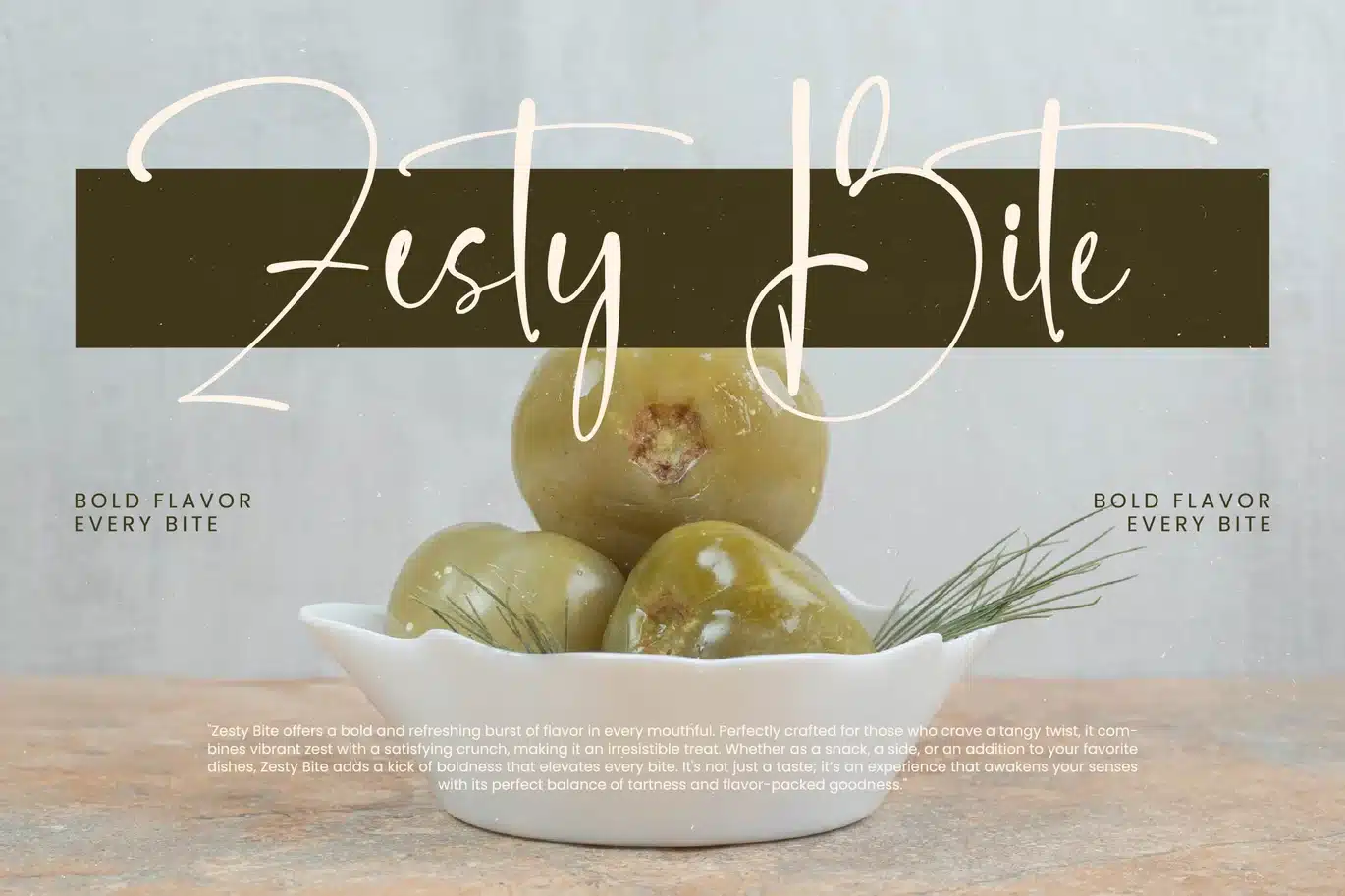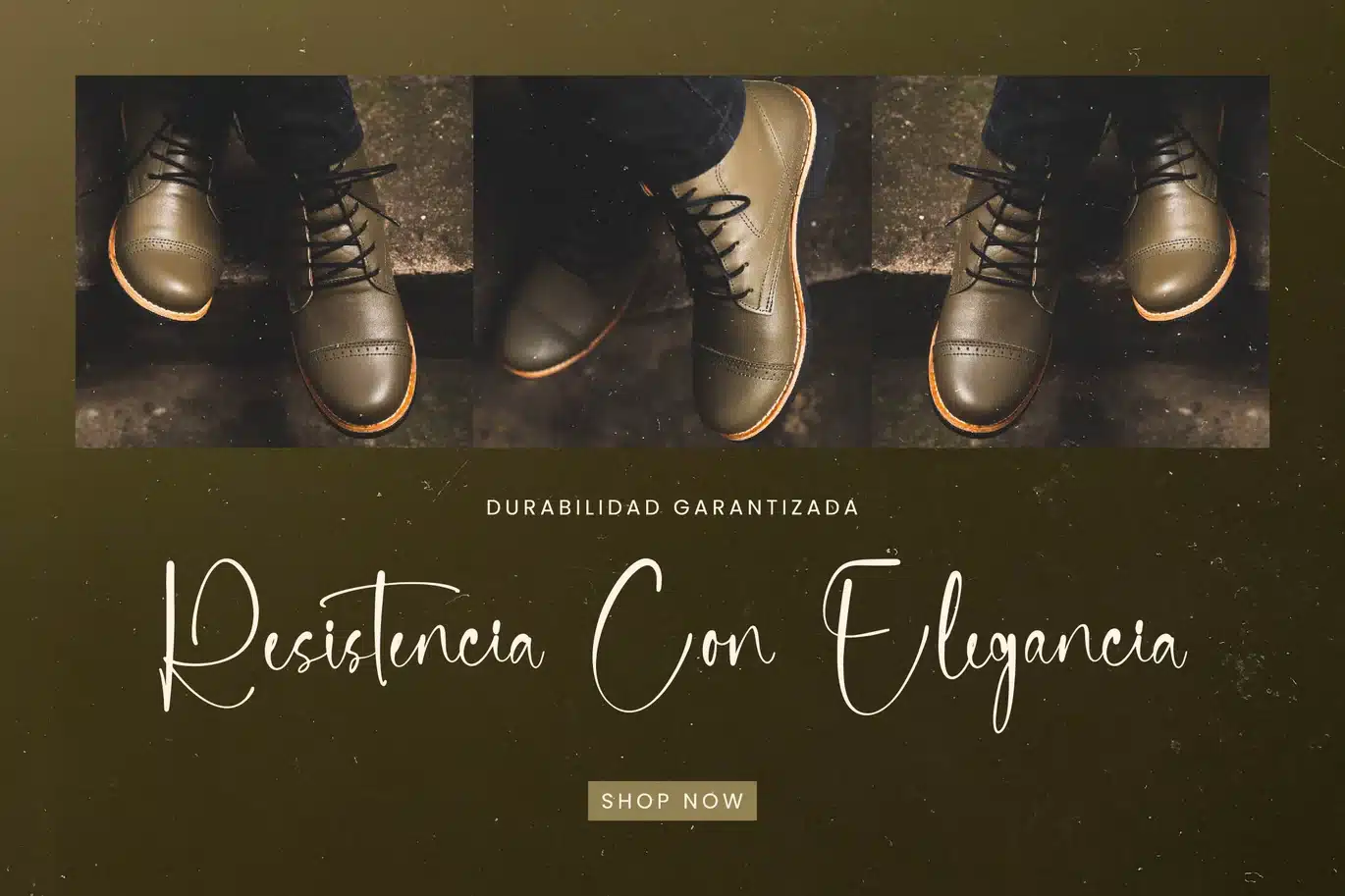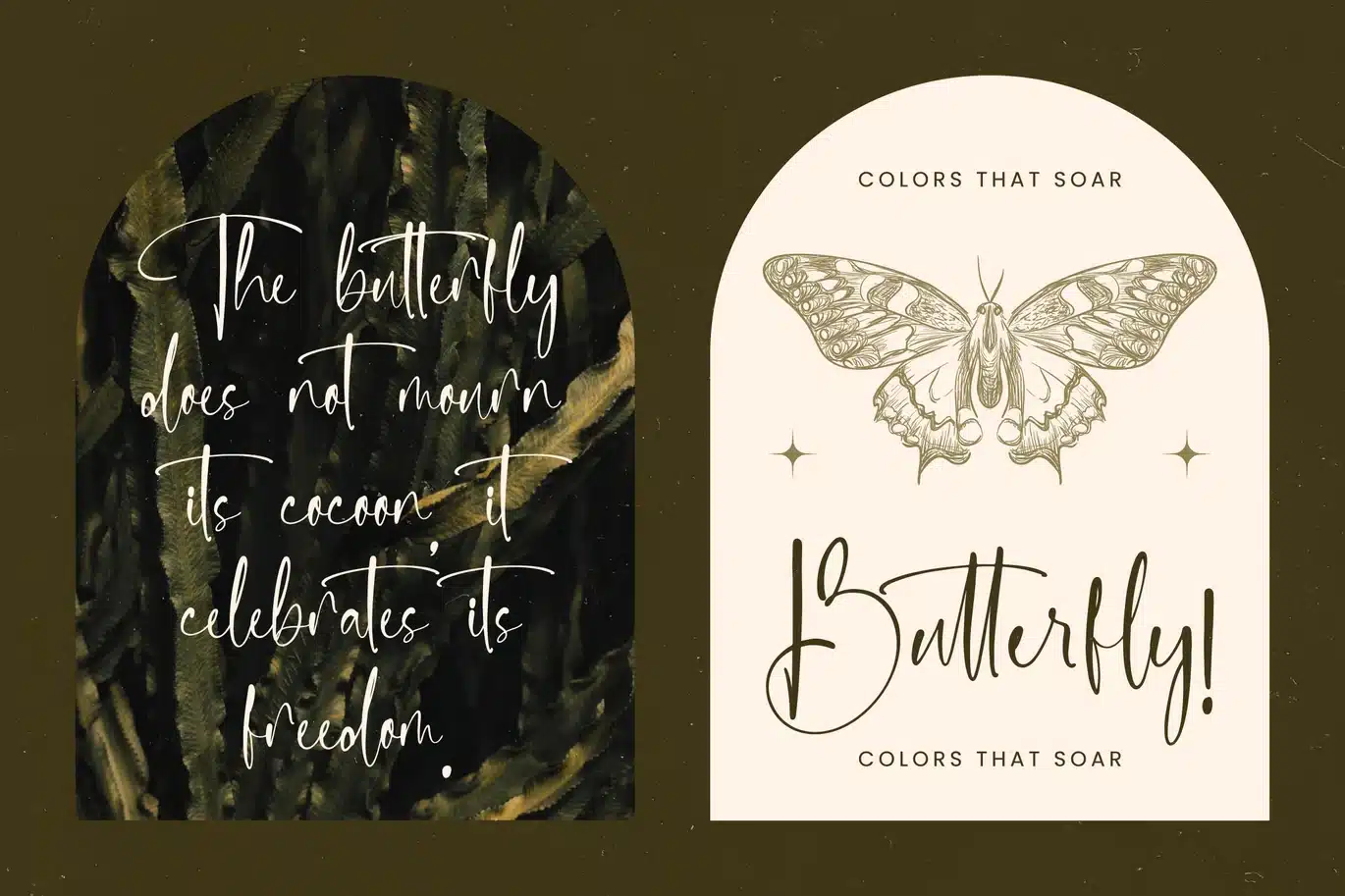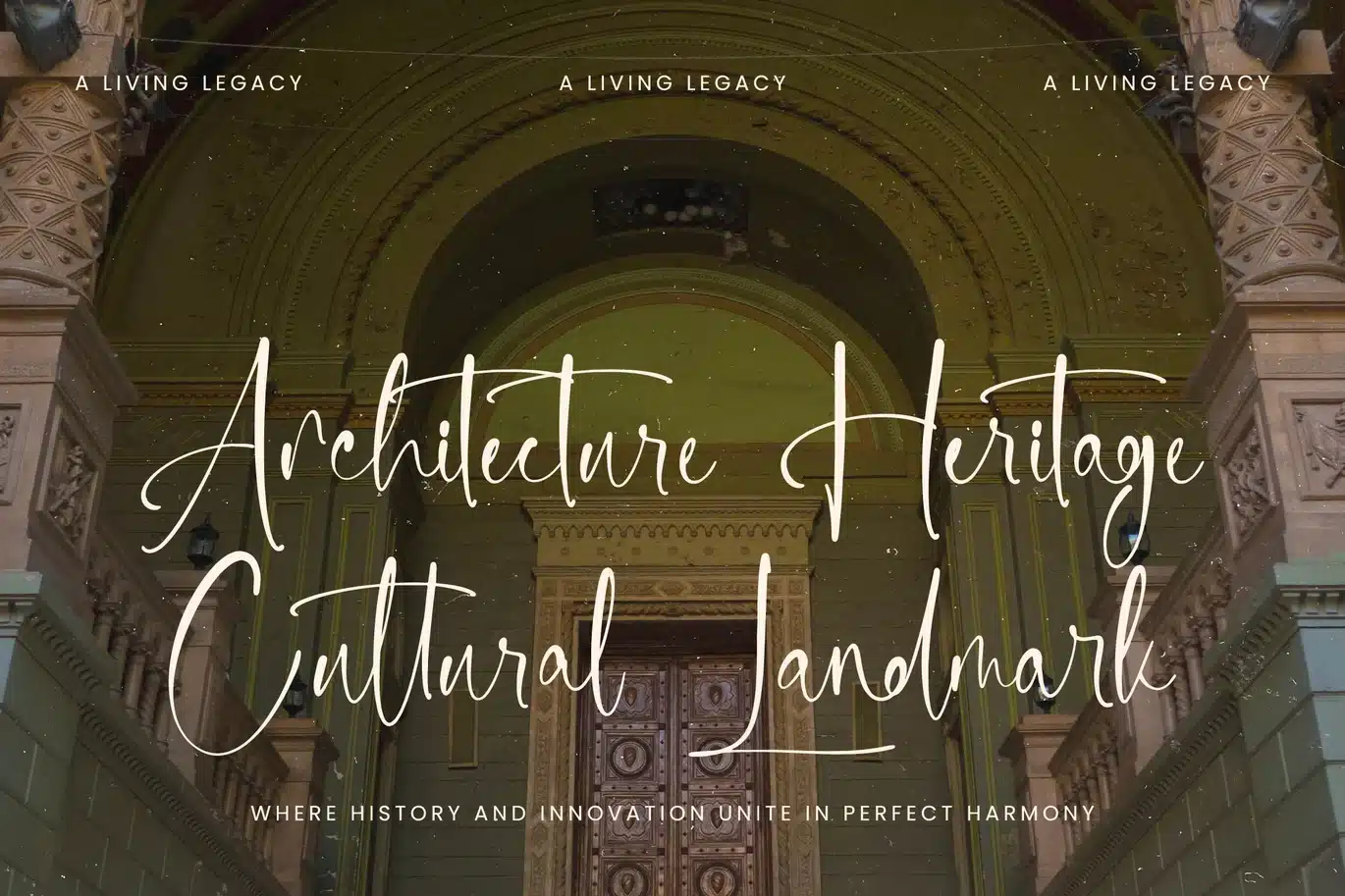
Delicately – Stylish Handwritten Font
Delicately - Stylish Handwritten Font
Elevate your designs with unparalleled grace and authenticity. Introducing Font Delicately - Stylish Handwritten Font Script, an exquisite typeface crafted to imbue every project with a touch of sophistication. Its naturally flowing strokes and delicate connections evoke a genuine handwritten feel, capturing the warmth and intimacy of a personal touch. This script font brings high-contrast elegance to any visual narrative, ensuring your message stands out with refined beauty.
Unlock a world of creative possibilities with its rich feature set. Font Delicately - Stylish Handwritten Font Script boasts an impressive collection of 274 ligatures and 60 alternates, offering designers immense flexibility to craft unique letter combinations and tailor each word for maximum impact. These extensive stylistic options ensure a truly custom and organic appearance, adding an artisanal quality to your typography. Its versatile nature makes it an indispensable asset for diverse design endeavors.